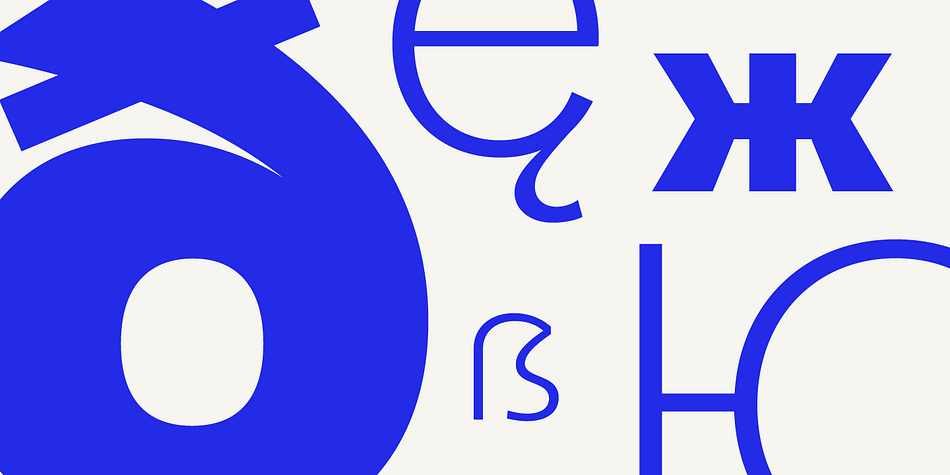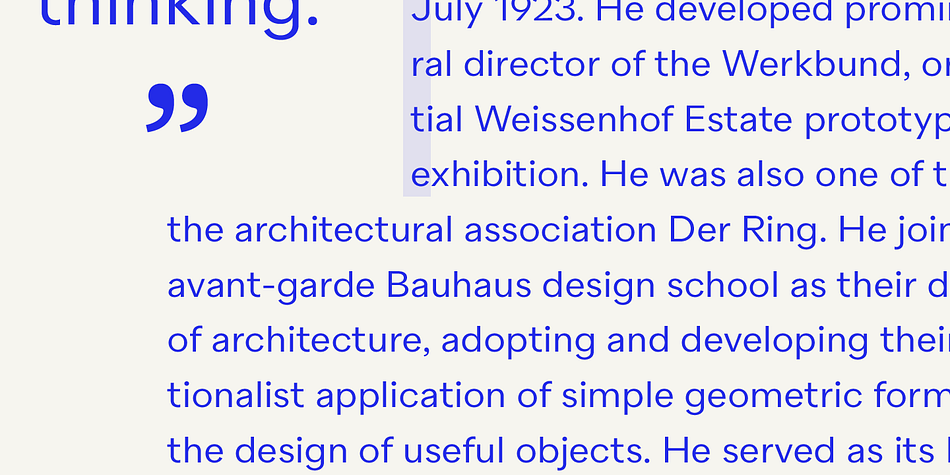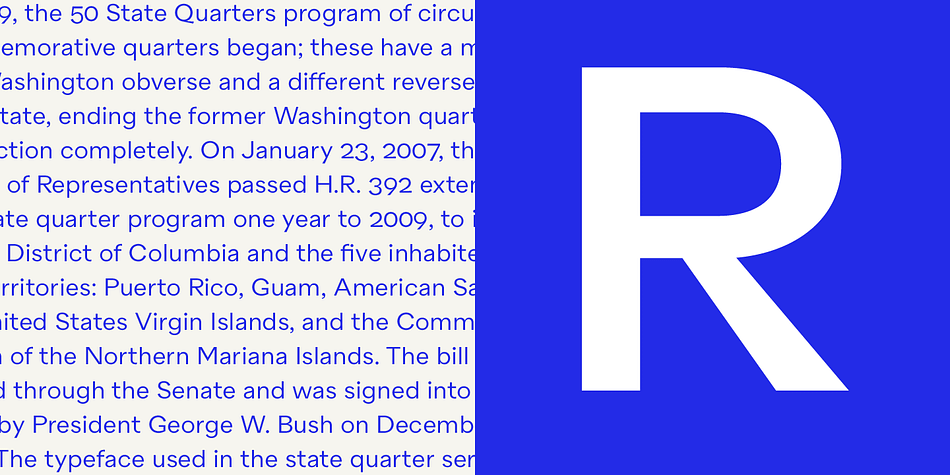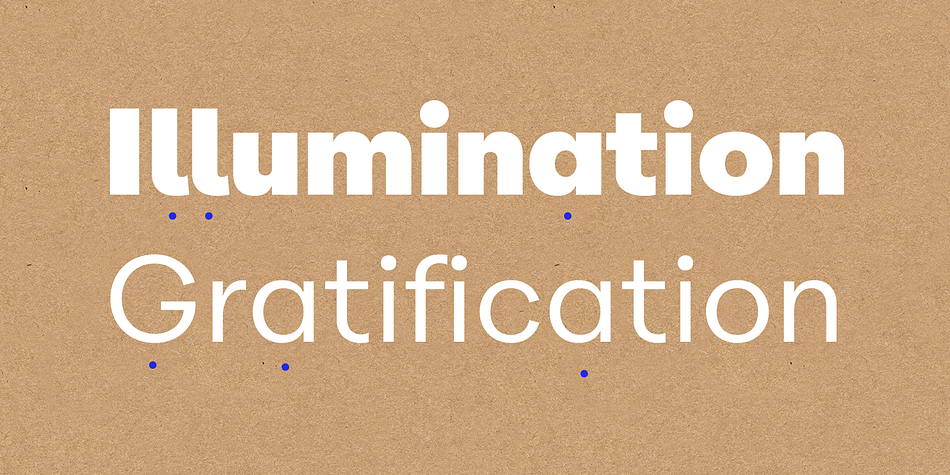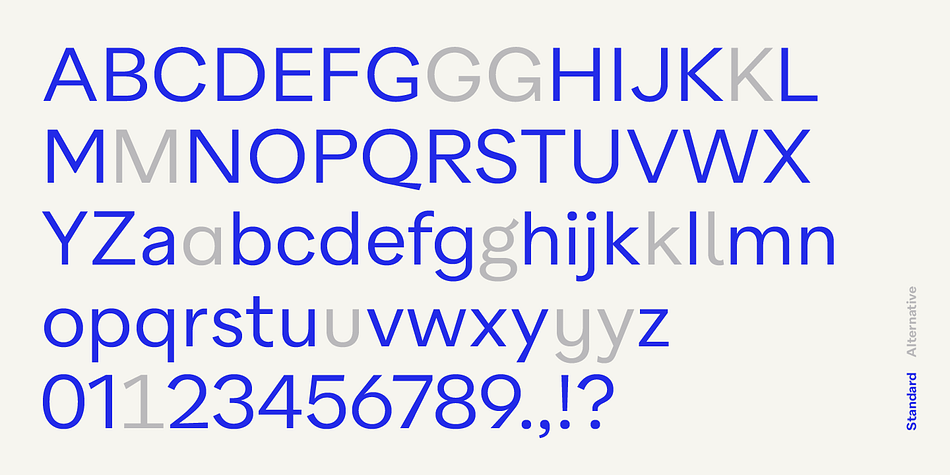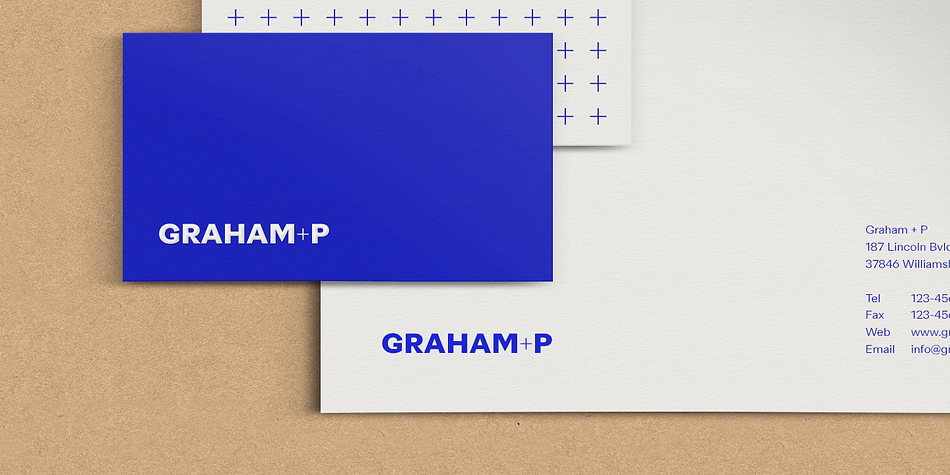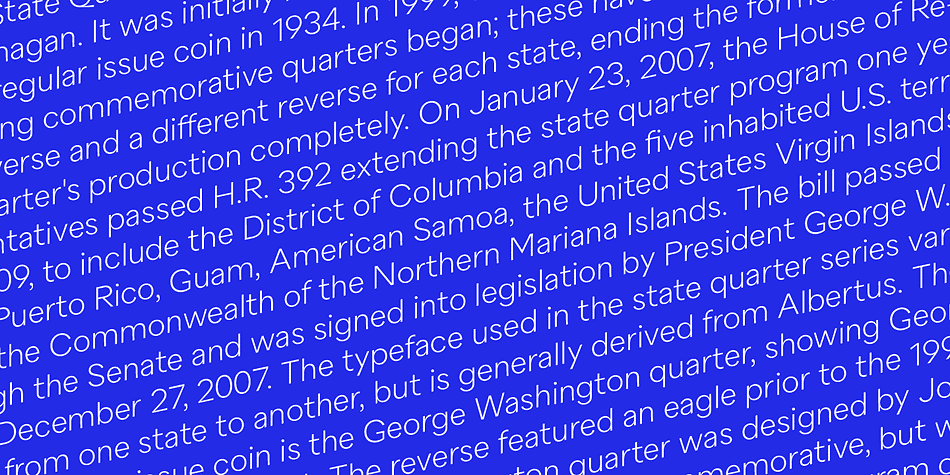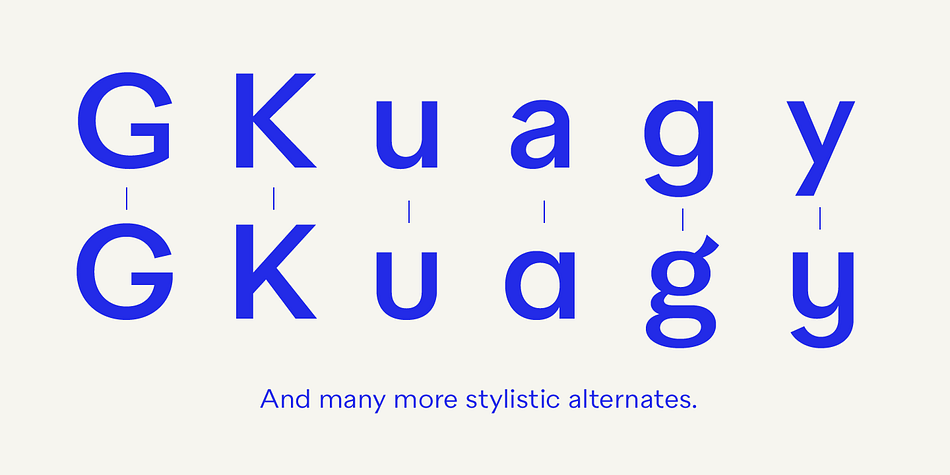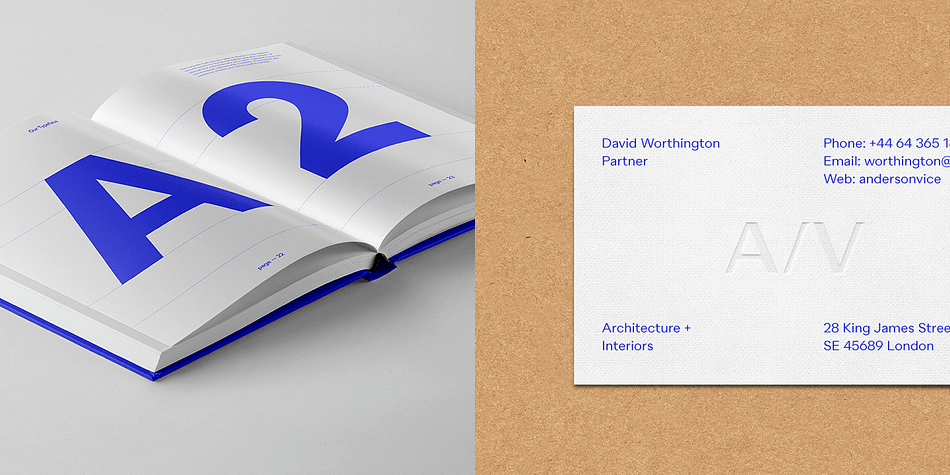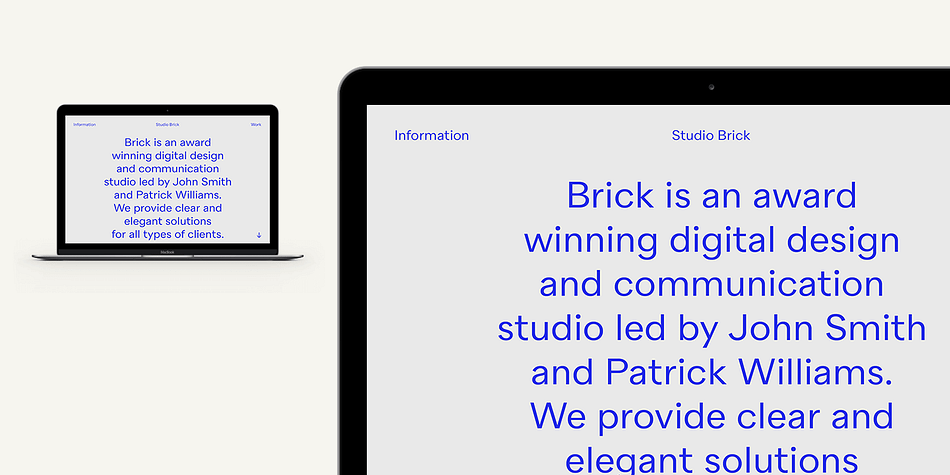
Designed by René Bieder, Quarion is a sans serif font family. This typeface has twenty-two styles and was published by René Bieder.
Quarion is a clean, neo-humanist sans with a contemporary geometric approach. Its design started as an exploration of geometric fonts from the early 20th century, like Futura, Neuzeit Grotesk or Recta which allows the typeface to generate an inviting but sophisticated feel on the page.
Although, less contrasting, geometric designs have been quite popular around type designers until today, Quarion finds its niche by combining circular elements with a medium stroke contrast, resulting in a versatile and robust workhorse for any analog or digital application.